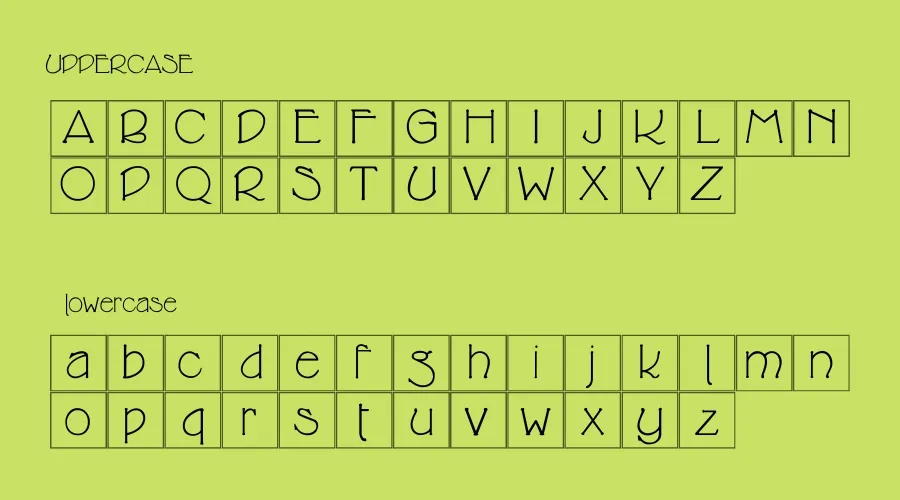
Cricket Font
About Cricket Font
The Cricket Font is a famous texture all around the world, it belongs to the category of the fancy texture family. This font was invented by LAbecedarienne and published by Monotype corporations with a unique type of texture. This font is free for all your fun tasks and procedures.
This unique texture has multiple glyphs and a unique character alphabet set, including capital and lowercase letters, numbers, markings, indications, symbols, punctuation, and many other eye-catching constructions. You may utilize it with Berry line Font and create new modern projects.